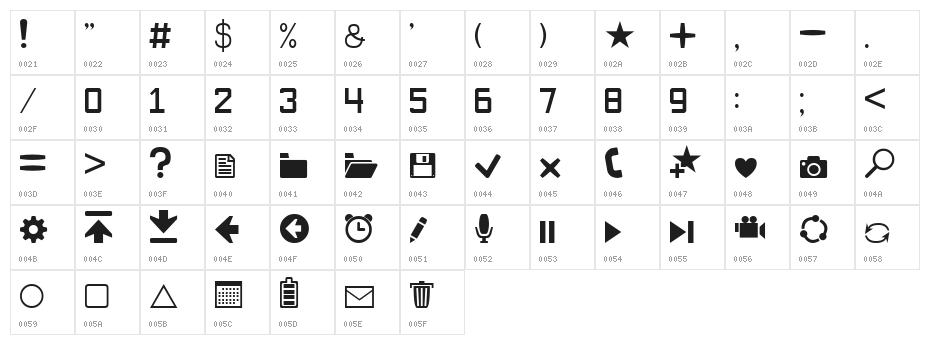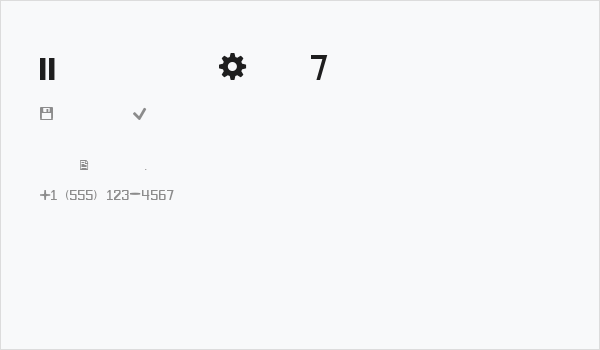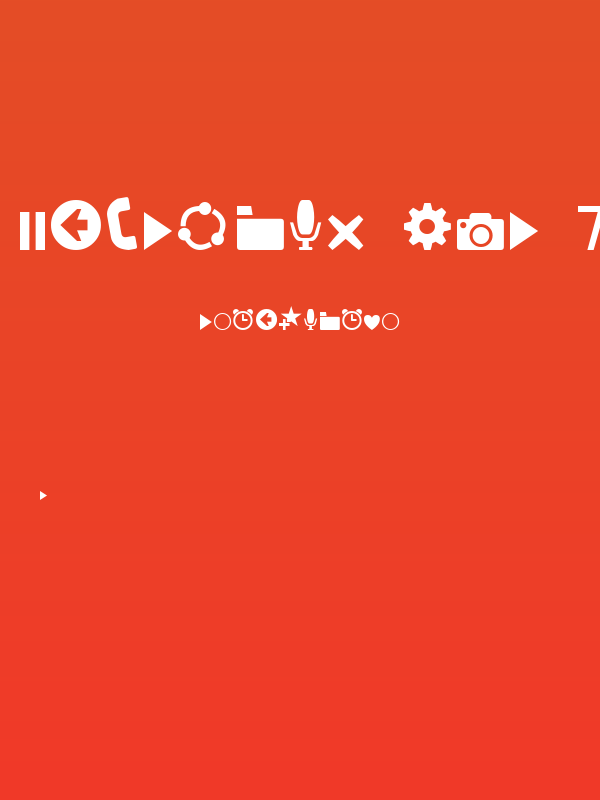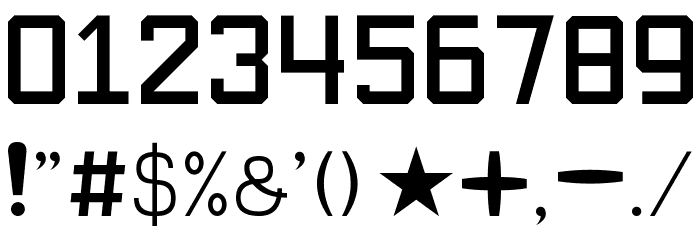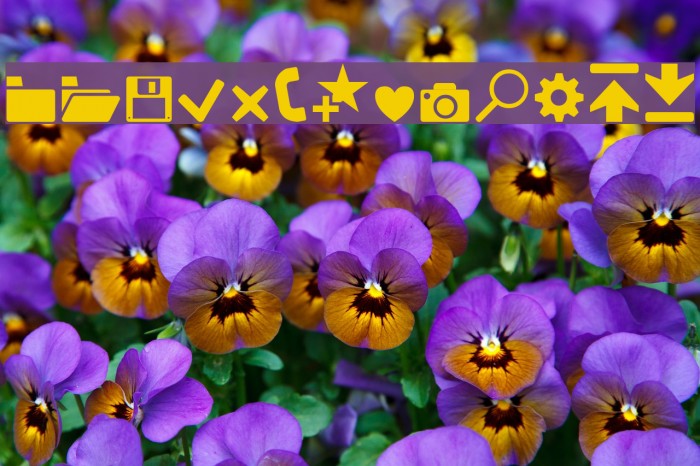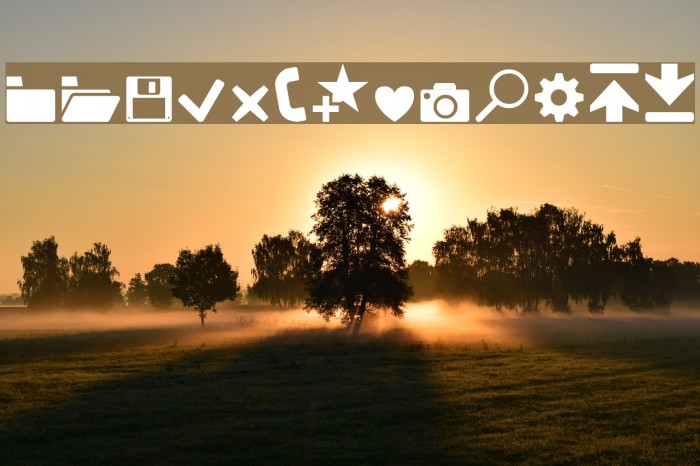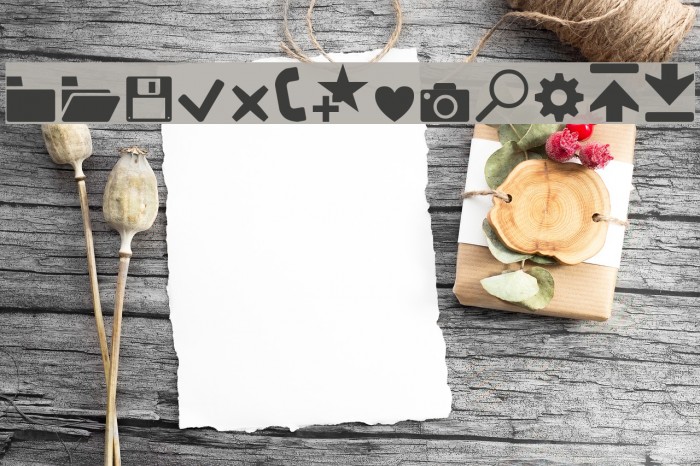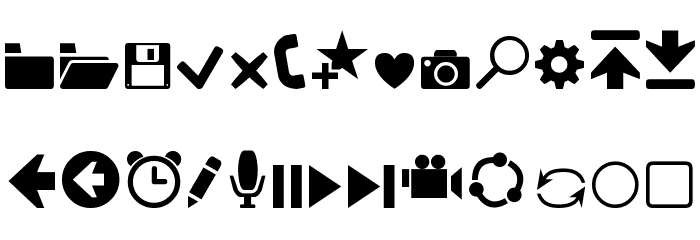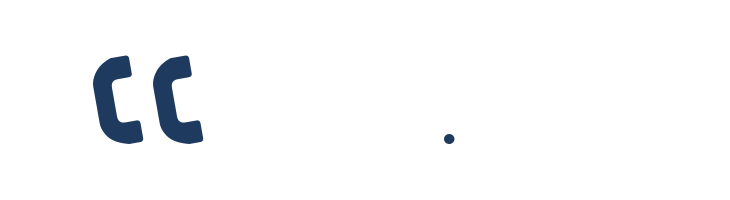
Software Kit 7 Font
Software Kit 7 Description
This is a decorative font featuring a variety of symbols and icons commonly used in software interfaces. The characters include folders, floppy disks, check marks, telephones, stars, hearts, cameras, magnifying glasses, gears, arrows, clocks, microphones, play and pause buttons, film reels, and recycling symbols. The numbers are bold and geometric, with a digital appearance that complements the icons. The overall style is modern and functional, suitable for digital applications and user interfaces. The icons are clear and easily recognizable, making them ideal for quick visual communication.